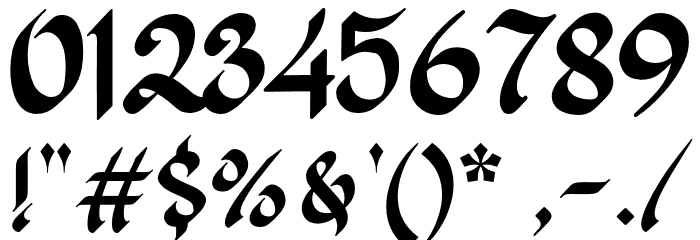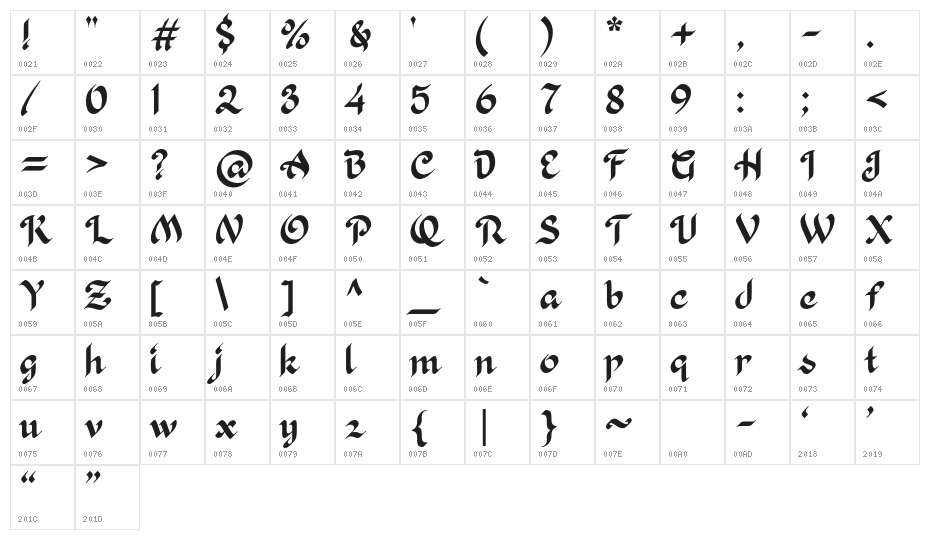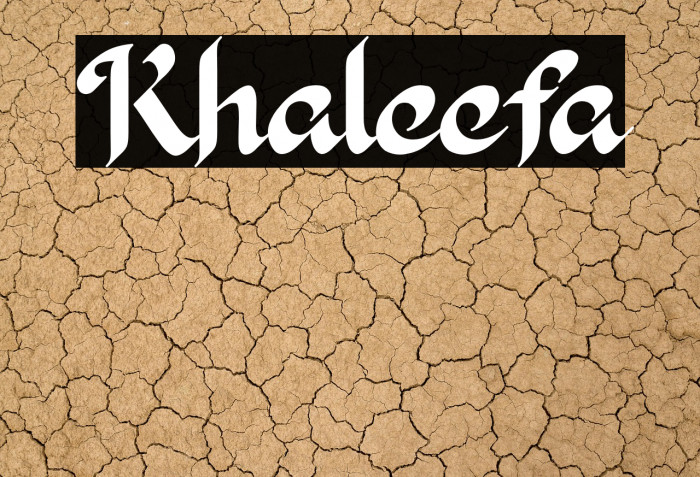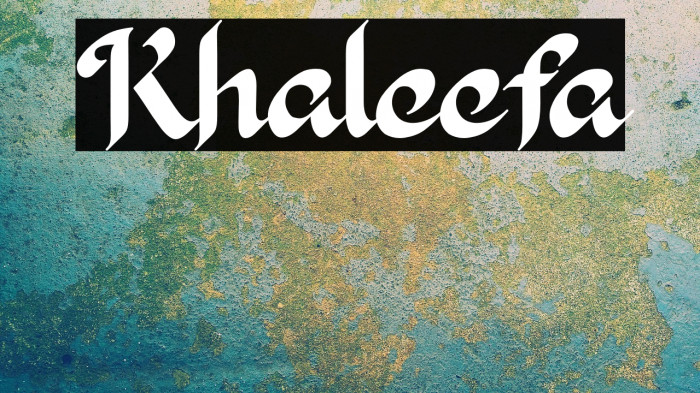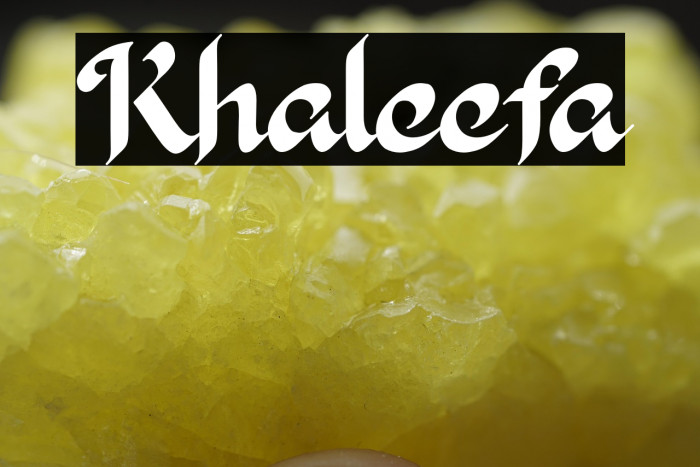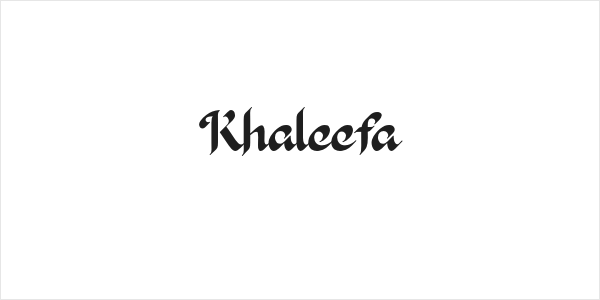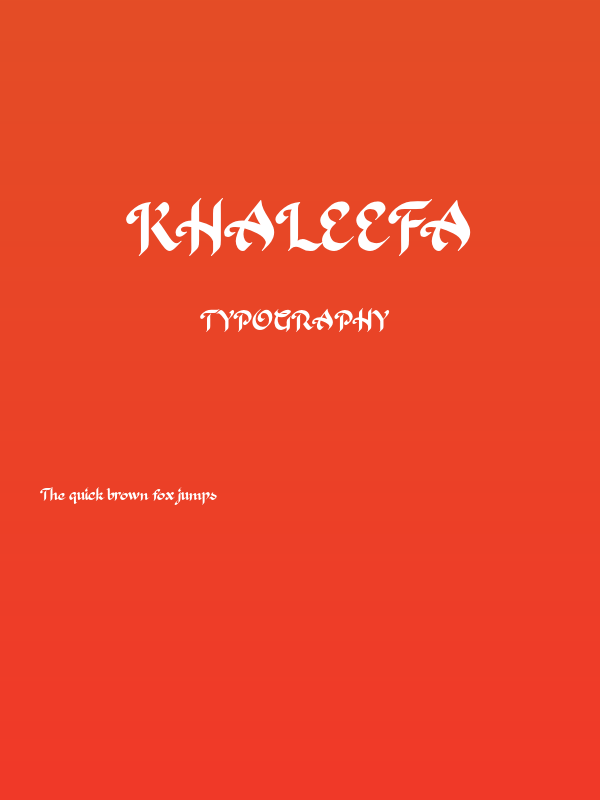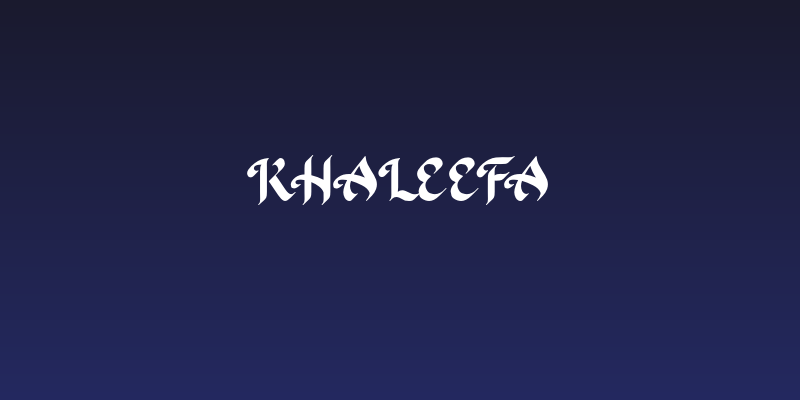
Khaleefa Font
Khaleefa Description
This font exhibits a bold and dramatic style, reminiscent of traditional calligraphy with a modern twist. The characters are intricately designed with sharp, angular strokes that give them a distinct and authoritative presence. The uppercase letters are particularly striking, with elaborate flourishes that add a sense of grandeur. The lowercase letters maintain a consistent style, offering a harmonious balance between elegance and readability. The numerals and special characters are equally well-crafted, ensuring a cohesive look across all text elements. This font is ideal for projects that require a touch of sophistication and historical flair.
| Proposed Projects | Ideal for branding, invitations, posters, and any design requiring a sophisticated, historical touch. |